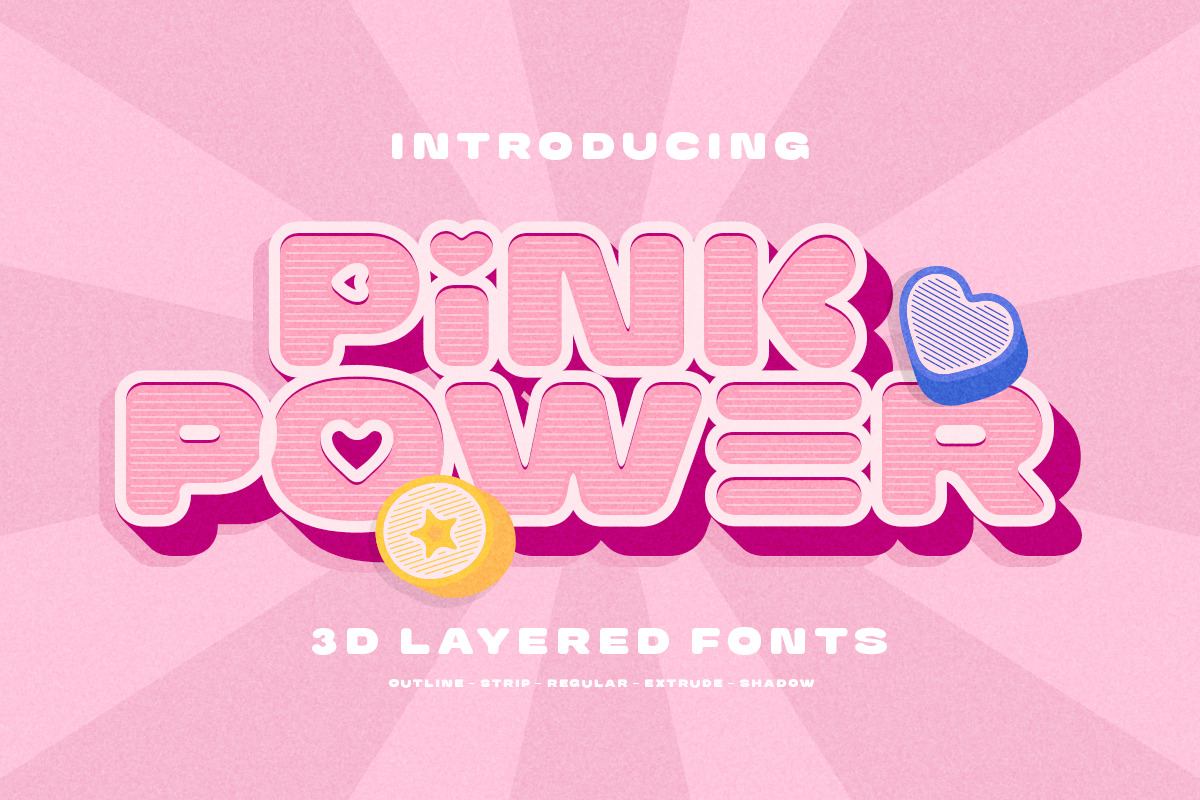
Pink Power – 3D Layered Font Free Download is a bold, energetic, and fun display typeface designed to stand out with vibrant layers and a pop-art feel. Please note: you must purchase this font for commercial use, but you can test it through a free download. With its playful curves, bold structure, and 3D layered style, Pink Power is perfect for posters, event flyers, children’s projects, empowering slogans, product packaging, and eye-catching social media graphics.
This font is all about expression, movement, and attitude—ideal for designers who want their typography to be loud, lively, and unforgettable. Whether you’re crafting a vibrant campaign or a colorful merch line, Pink Power – 3D Layered Font Free Download gives your designs volume and personality. Fully compatible with Adobe Illustrator, Photoshop, and other design tools. Download it today for personal use and unleash the bold, layered fun of Pink Power.